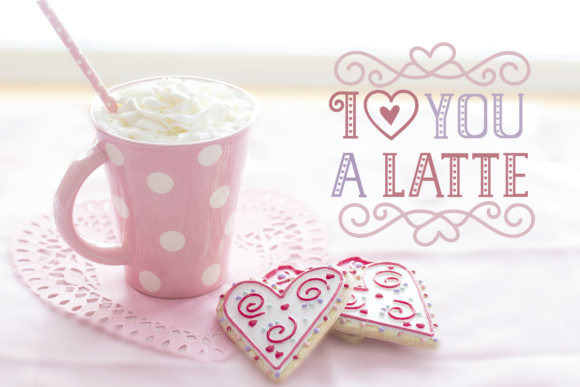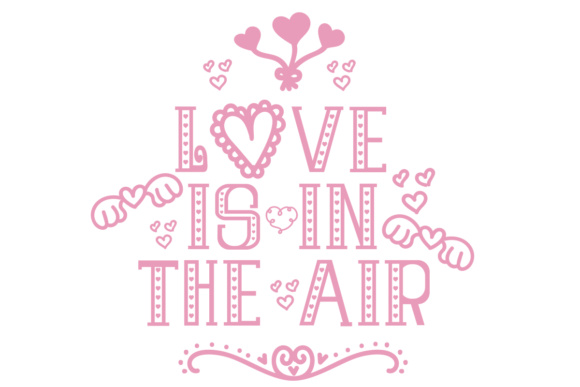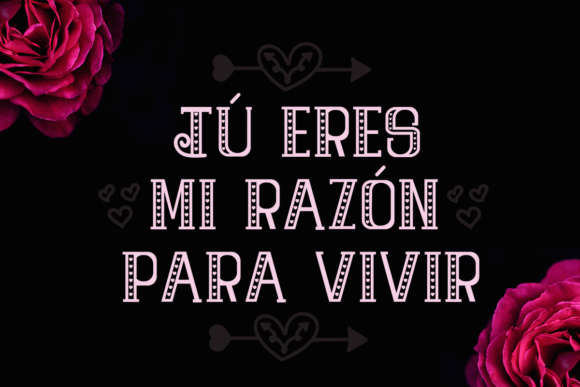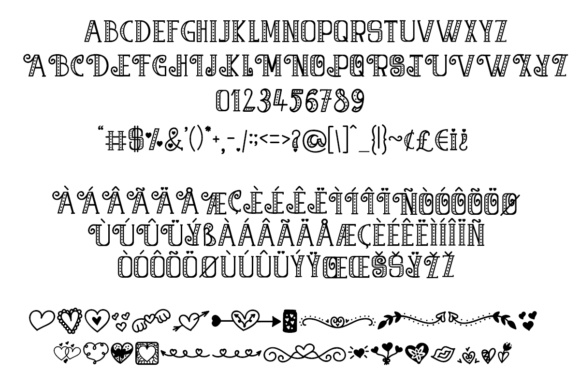
A Valentine Story Font: The Perfect Addition to Your Valentine’s Day Designs
Valentine’s Day is just around the corner, and what better way to make your designs stand out than with a beautiful and unique font? Look no further than A Valentine Story Font, a lovely font decorated with hearts and perfect for creating original and lovely designs. In this article, we’ll take a closer look at this gorgeous font and explore its features, as well as provide you with some inspiration and ideas for using it in your designs.
What is A Valentine Story Font?
A Valentine Story Font is a digital font designed specifically for Valentine’s Day. It features a beautiful, hand-drawn design with hearts, accents, and 26 dingbats that can be used to create stunning and original designs. The font is perfect for designers, crafters, and anyone looking to add a touch of love and romance to their projects.
Key Features of A Valentine Story Font
- Heart-Decorated Design: The font features a beautiful design decorated with hearts, perfect for Valentine’s Day.
- Accents and Dingbats: The font comes with accents and 26 dingbats that can be used to create unique and original designs.
- Perfect for Valentine’s Day: The font is designed specifically for Valentine’s Day, making it the perfect addition to your holiday designs.
Using A Valentine Story Font in Your Designs
A Valentine Story Font is perfect for a variety of design projects, including:
- Valentine’s Day Cards: Use the font to create beautiful and unique Valentine’s Day cards for your loved ones.
- Social Media Graphics: Add a touch of love and romance to your social media graphics with this gorgeous font.
- Digital Papers: Use the font to create stunning digital papers that can be used in scrapbooking and other craft projects.
- Invitations: Create beautiful and unique invitations for Valentine’s Day parties and events.
Tips and Inspiration for Using A Valentine Story Font
Here are a few tips and ideas to get you started with using A Valentine Story Font in your designs:
- Mix and Match: Experiment with mixing and matching the font with other design elements, such as images and textures, to create unique and interesting designs.
- Use the Dingbats: Don’t forget to use the 26 dingbats that come with the font to add extra interest and detail to your designs.
- Play with Color: Experiment with different color schemes and combinations to find the perfect look for your design.
- Get Creative: Don’t be afraid to think outside the box and come up with unique and creative ways to use the font in your designs.
A Valentine Story Font is a beautiful and unique font that is perfect for adding a touch of love and romance to your Valentine’s Day designs. With its heart-decorated design, accents, and 26 dingbats, this font is sure to inspire you to create stunning and original designs. Whether you’re a designer, crafter, or just looking for a fun and creative way to celebrate Valentine’s Day, A Valentine Story Font is the perfect addition to your design toolkit.